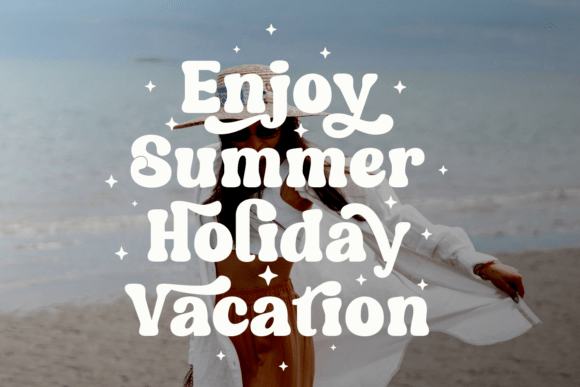
Always Special Font
Presenting “Always Special”, an enchanting fusion of vintage charm and modern sophistication. Tenderly encapsulating the cozy familiarity of yesteryears while still resonating a fresh, contemporary appeal. This font showcases playful twists and smooth, rounded contours, culminating in an iconic selection for projects requiring an atmosphere of cosiness and closeness. From corporate branding to bespoke invitations to an array of artistic endeavors, “Always Special” pairs an irresistible visual appeal with standout legibility. This font is the go-to choice for any design craving a touch of inviting warmth and magnetic charm.